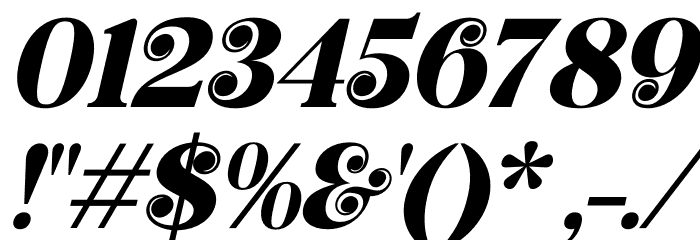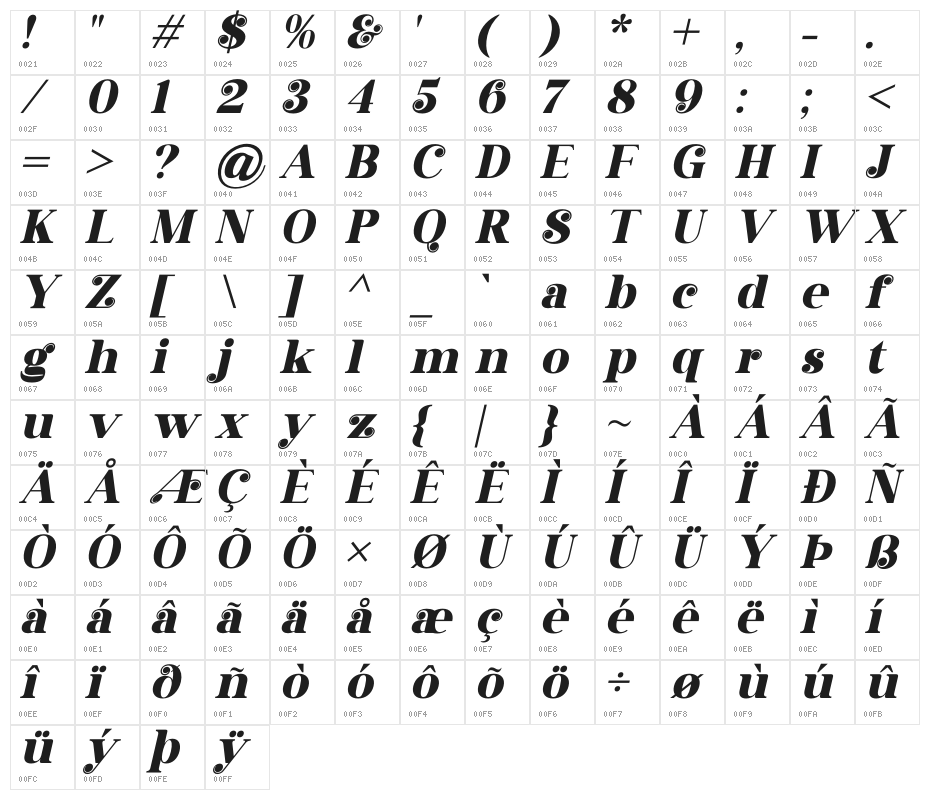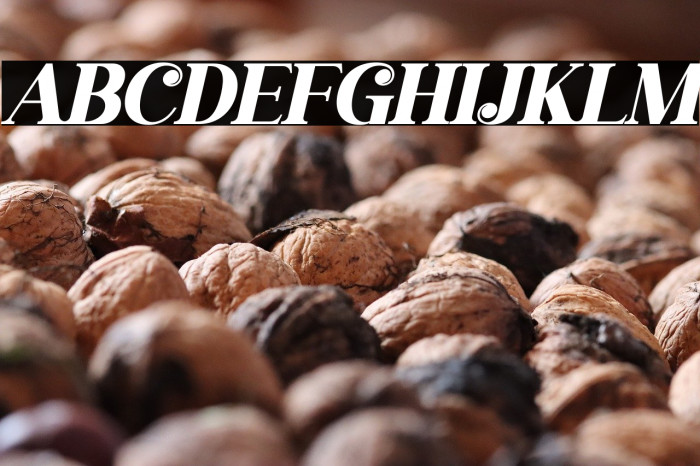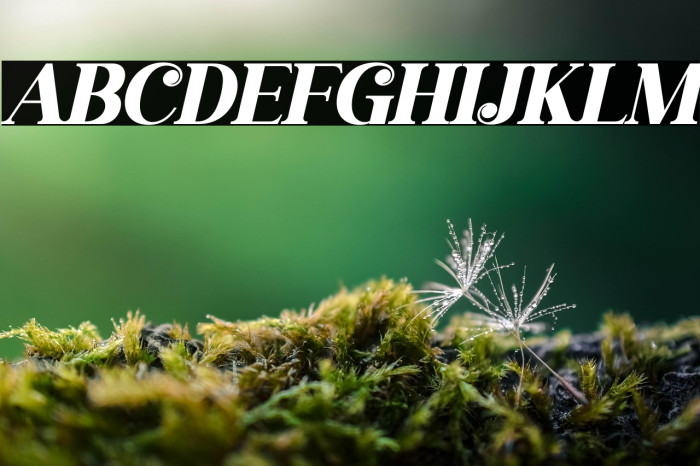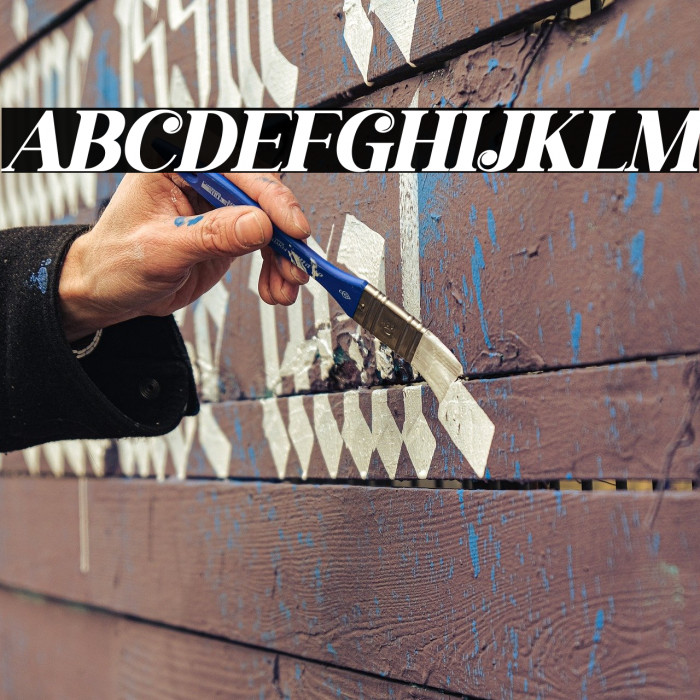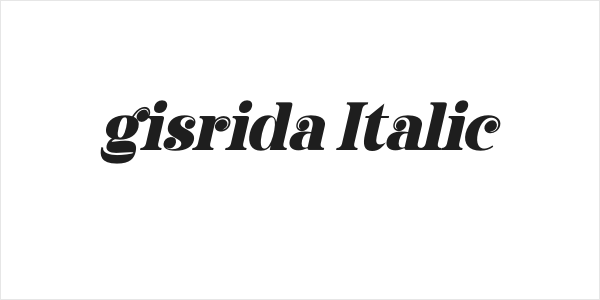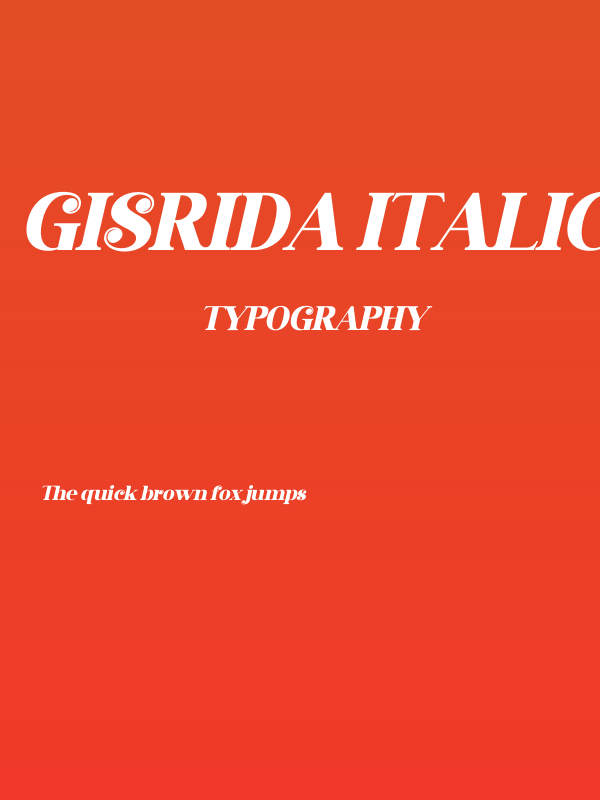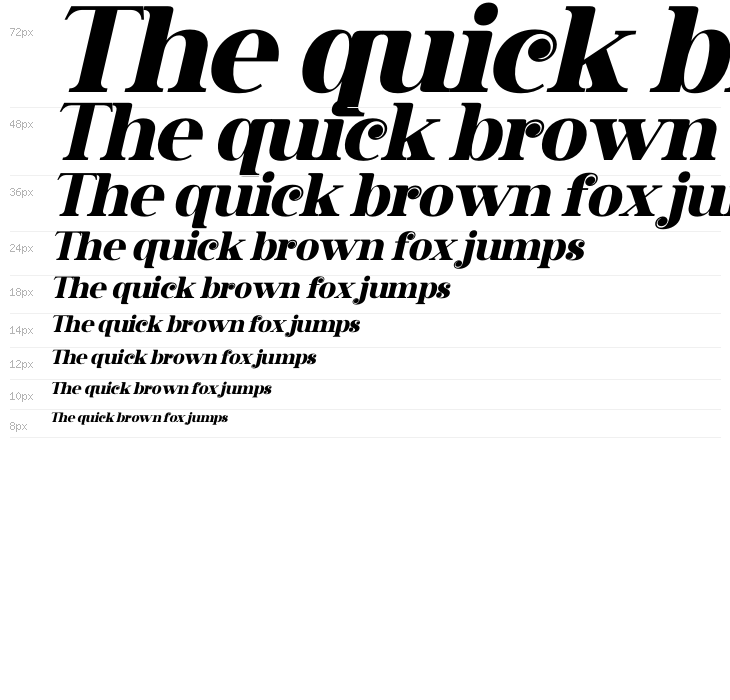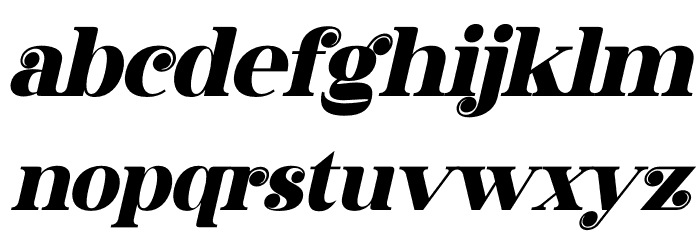
gisrida Italic Font
gisrida Italic Description
This font exhibits a bold and dynamic italic style, characterized by its pronounced slant and thick strokes. The uppercase letters are elegantly crafted with a distinctive flair, particularly noticeable in the curved tails of characters like 'Q' and 'R'. The lowercase letters maintain a consistent style, with rounded forms and a slight flourish on certain characters, adding a touch of sophistication. The numerals are bold and prominent, with unique features such as the curved tail on the '2' and '5'. Special characters are designed with the same attention to detail, ensuring a cohesive look across all glyphs. The overall design is both eye-catching and versatile, suitable for a variety of creative applications.